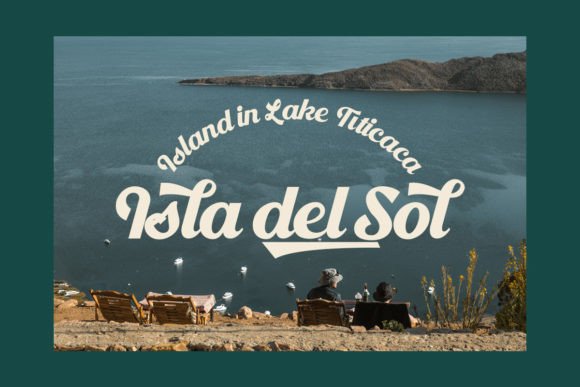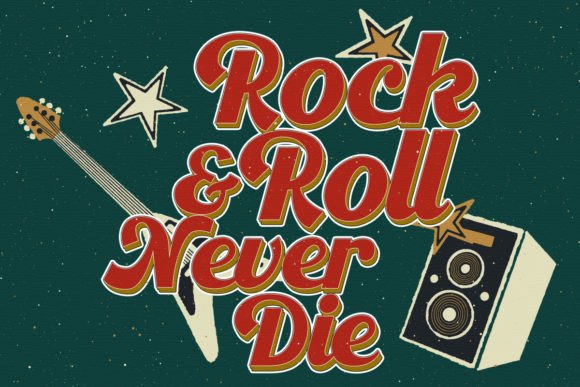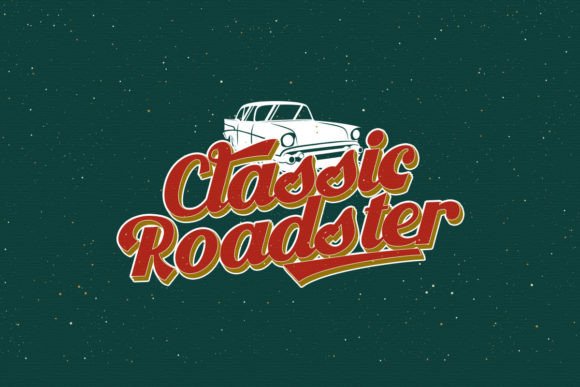
Introduction to Nostalgic Harmony Font
Have you ever stumbled upon an old vinyl record or a faded poster in your attic, and suddenly, a wave of nostalgia washes over you? The colors, the fonts, the textures – everything transports you back to a bygone era. For designers, capturing that essence can be a daunting task, but with the right tools, it’s possible to recreate the magic of the past.
Enter the Nostalgic Harmony Font, a design resource that brings the spirit of the 1970s to your creative project. Inspired by the iconic posters and album covers of funk, disco, and rock music, this font is a treasure trove of retro charm, complete with OpenType features that allow for endless customization.
Key Features of Nostalgic Harmony Font
- High-quality, hand-drawn design ideal for creative projects requiring a touch of nostalgia
- Unique, elegant script style that adds a touch of sophistication to any creative project
Honest Review: Nostalgic Harmony Font
I recently stumbled upon the Nostalgic Harmony Font, and I must say it’s a great addition to my design resource library. As a designer, I appreciate fonts that evoke a sense of nostalgia and warmth, and this one definitely delivers.
Here are some things that work well: ✨ High-quality design, ✨ Beautifully crafted letterforms, and ✨ Suitable for a wide range of creative projects, from invitations to editorial designs.
One of the standout features of this font is its transparent background, which makes it perfect for designing on a white or light-colored background. This is especially useful for designers who prefer to work with a clean and minimalist aesthetic.
However, there are a few limitations to consider: ⚠️ Limited character set, ⚠️ May not be suitable for bold or loud designs, and ⚠️ Some users may find the font’s nostalgic feel a bit too old-fashioned.
Overall, I’m impressed with the Nostalgic Harmony Font, and I think it’s a great addition to any designer’s library. With its high-quality design and transparent background, it’s perfect for a wide range of creative projects.
- Beautifully crafted letterforms
- Wide range of creative applications
The Nostalgic Harmony Font is perfect for creating a vintage or retro-themed design. It’s also great for use in presentations, posters, and other marketing materials. With its transparent background and high-quality design, the Nostalgic Harmony Font is a valuable design resource for any creative project.